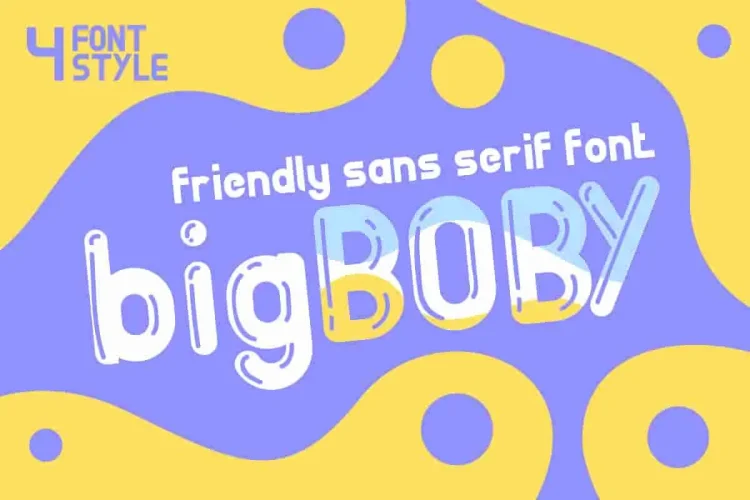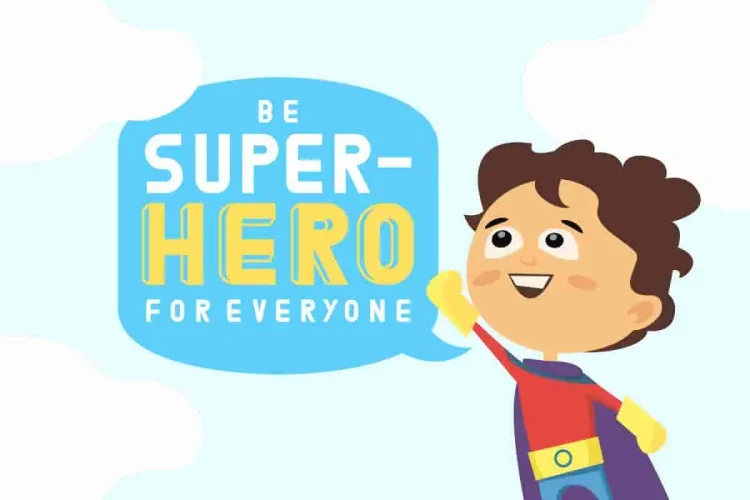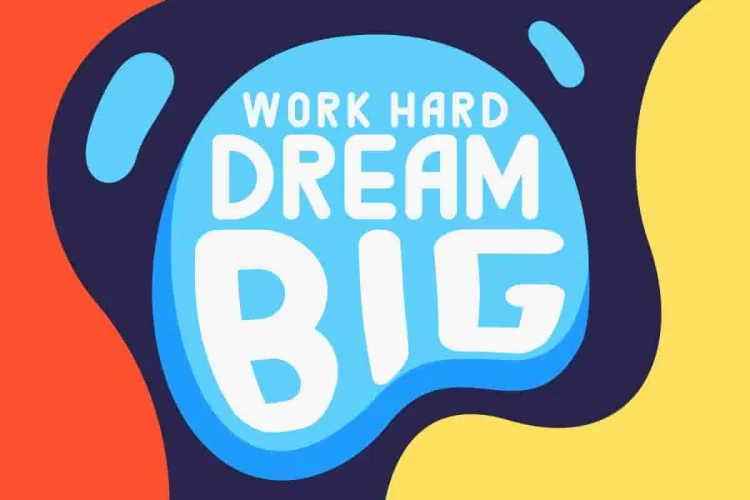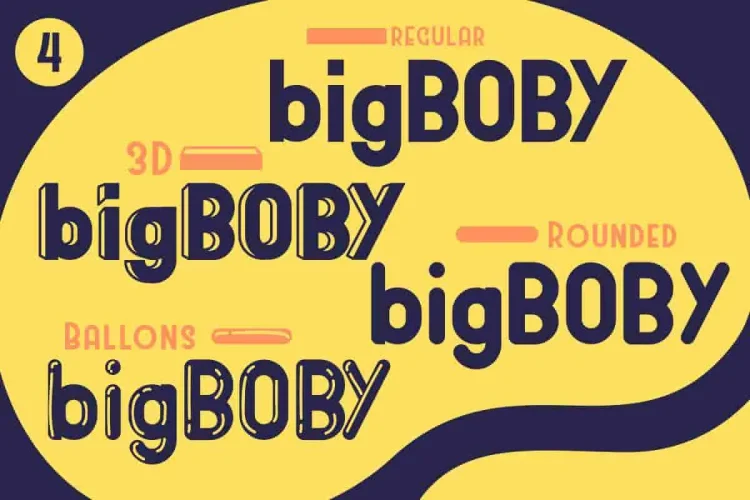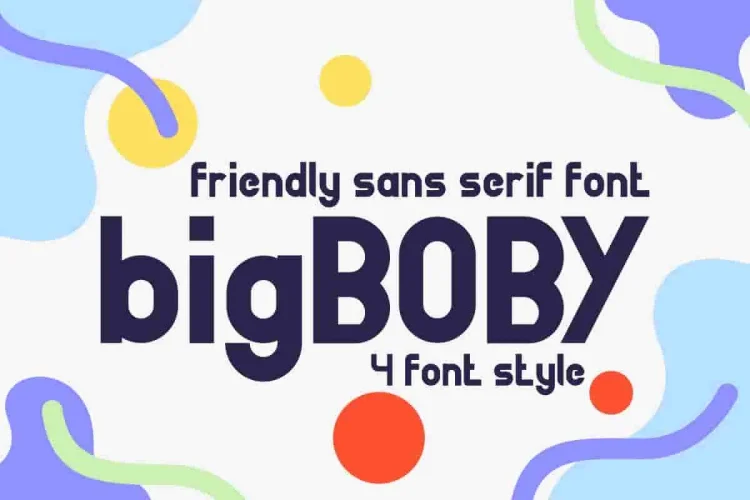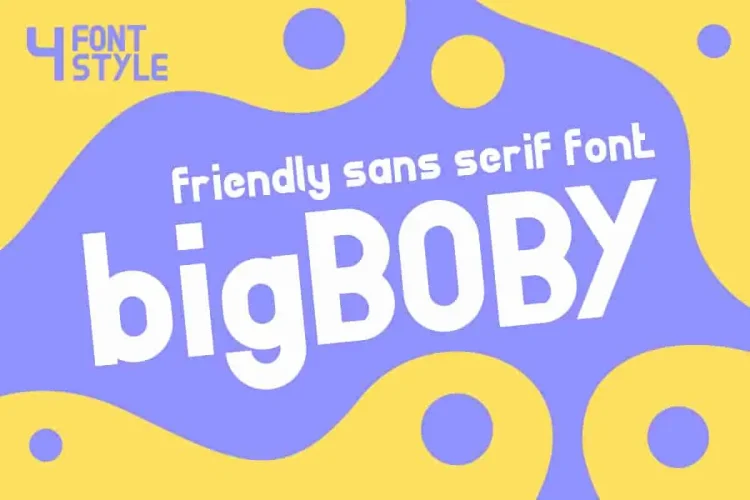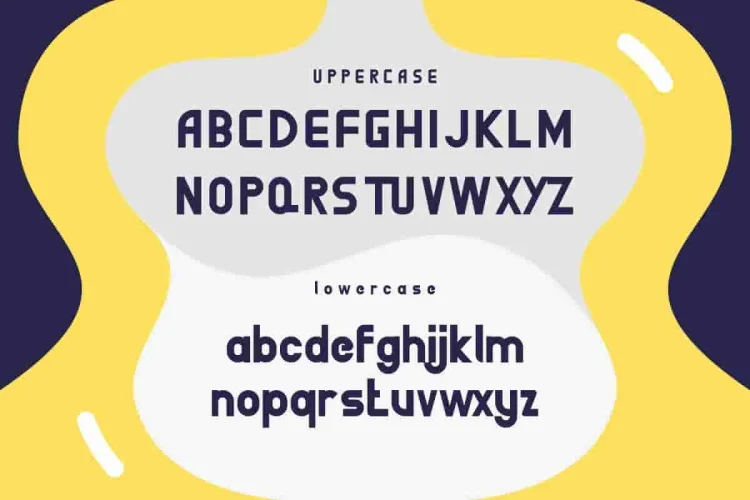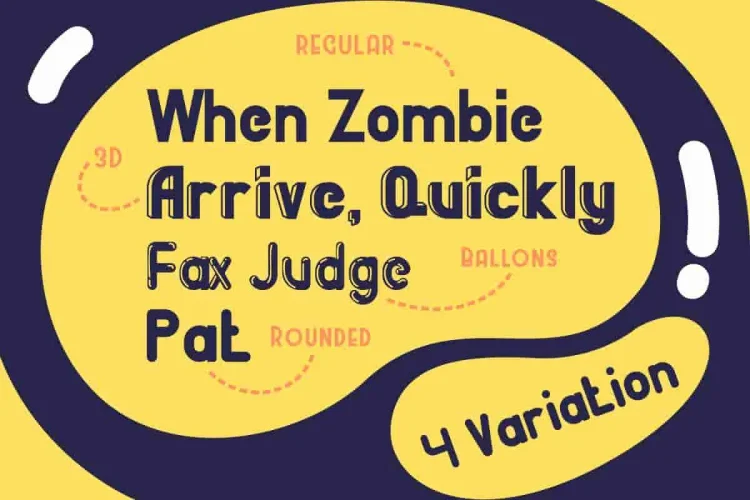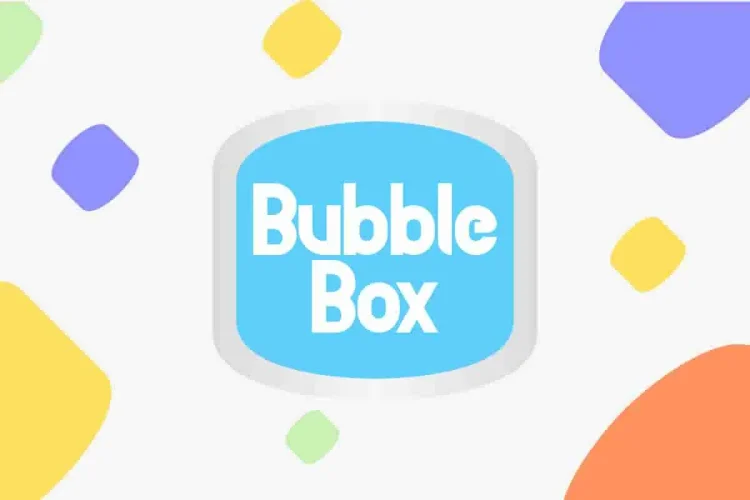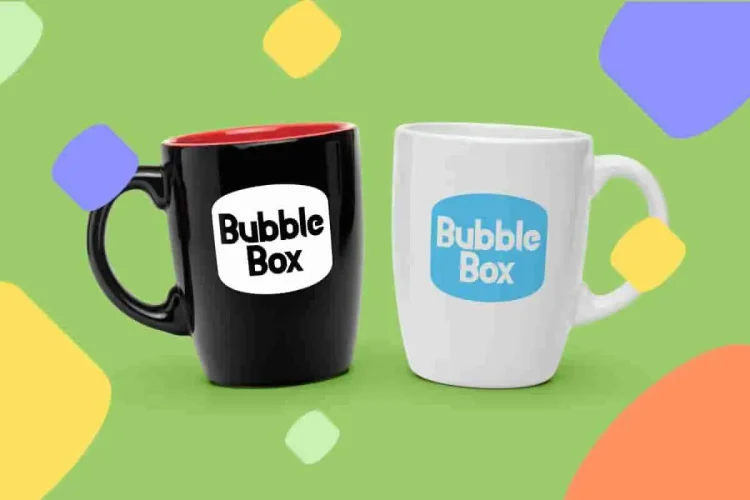
bigBoby Sans Serif Comic Fonts
Hi Everyone! Introducing our newest font : bigBoby ! This is a new modern sans serif in comic fun style font. It has a fresh, elegant, fun and stylish glyph. 😍
🔡What makes bigBoby stand out? It comes with 4 delightful variations:
• Regular – Clean and bold for simple, versatile use
• 3D – A dimensional look that adds pop and playfulness
• Rounded – Smooth corners for a softer, friendly appeal
• Ballons – Quirky, hand-drawn style that feels like cartoon lettering
bigBoby is a elegance styling font which will be perfect for branding, logo, photography, books, comic, caricature etc. It is so funny, cool and beautiful.
bigBoby’s unique glyphs are designed to look fun, casual, and full of charm — without compromising readability. The 3D version gives off a retro comic book feel, while the Ballons style adds a handmade, animated vibe that children and creatives alike will love.
👻Why Choose bigBoby?
• 4 Font Styles in One Pack
Whether you’re designing a kids’ book cover, a fun event poster, or a colorful logo, bigBoby is ready to shine. It’s the perfect fusion of comic spirit and modern design, making it suitable for everything from branding to illustration, social media content, photography watermarks, quotes, and even educational material.